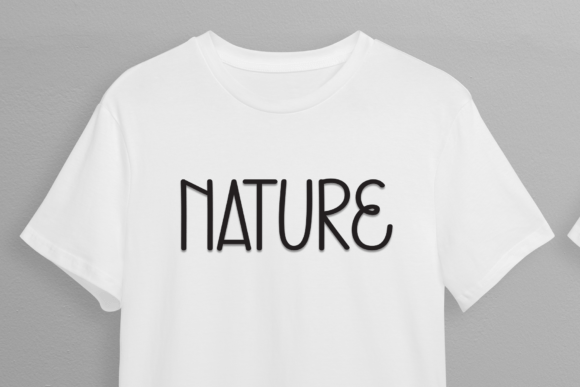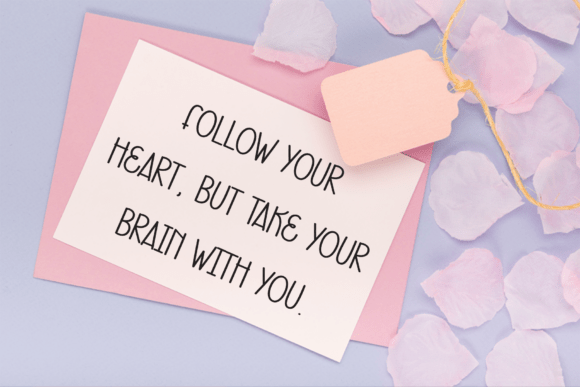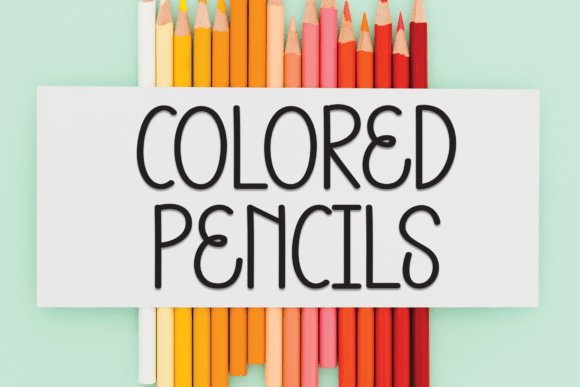
Introduction to Make over Font
Introducing a whimsically warm and playful handwritten display font, carved with a charm that radiates friendliness.
Sprinkled with a joyous vibe, this font excels in crafting wedding invitations, cards, and designs craving a delightful twist Embolden your creativity and add an enchanting dash of fun that speaks volumes about your visual stories.
Key Features of Make over Font